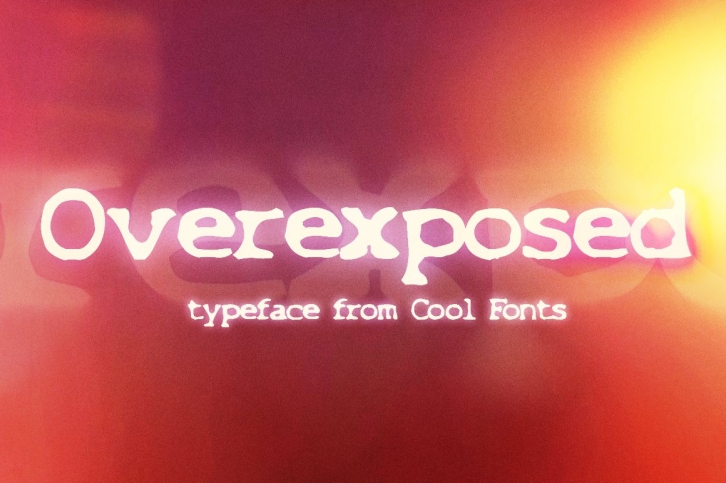
Overexposed
This is a “Grunge†style font that looks as if it was overexposed on film. It is distressed yet still very readable. It can double as an typewriter font and is a favorite for use in video graphics. It also pairs well with https://creativemarket.com/fontdude/1623611-Smash and can be mixed to create some interesting variation and randomness. All fonts include the full character set with numbers, punctuation, accents, etc